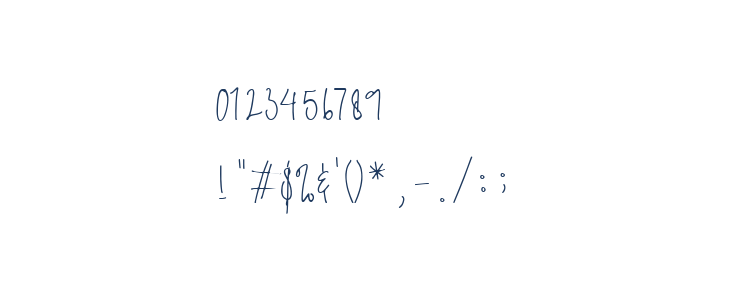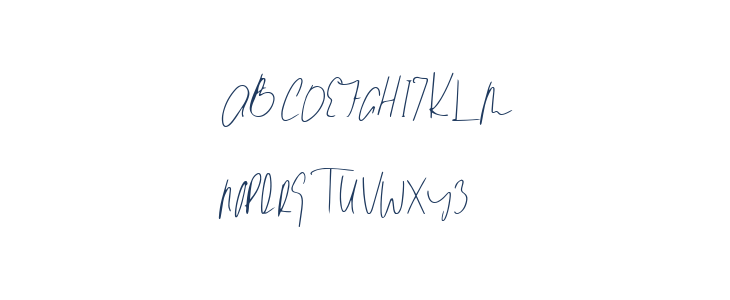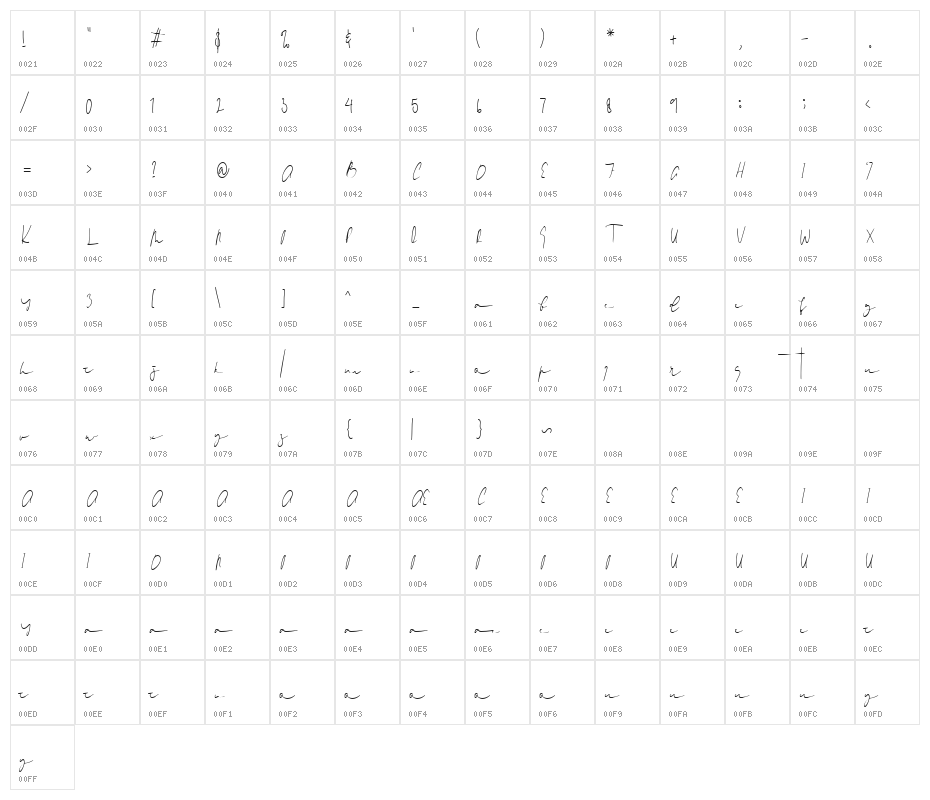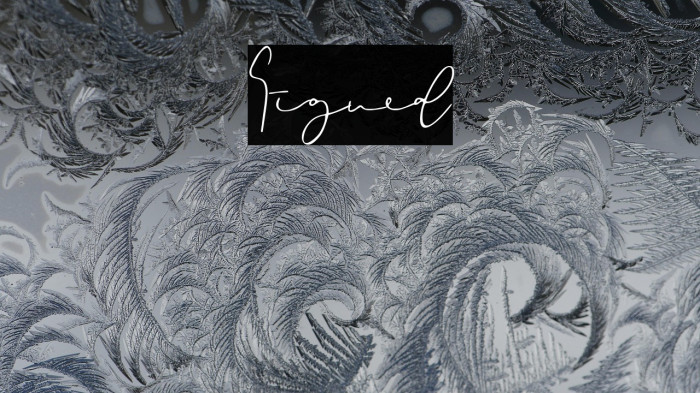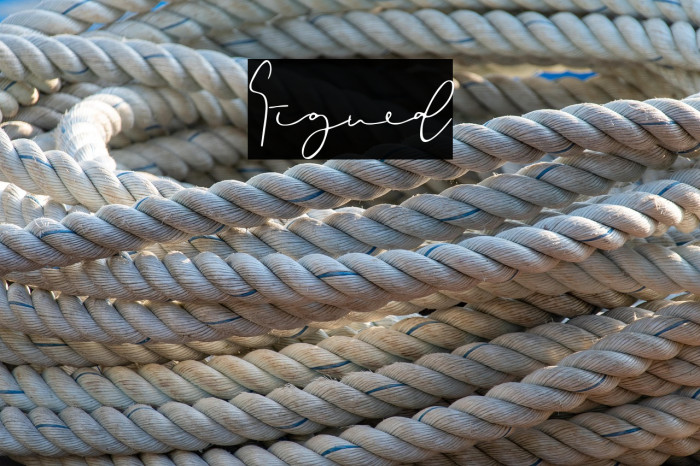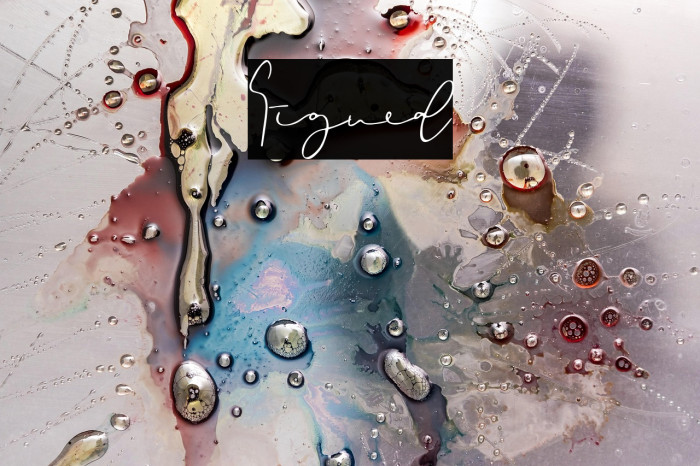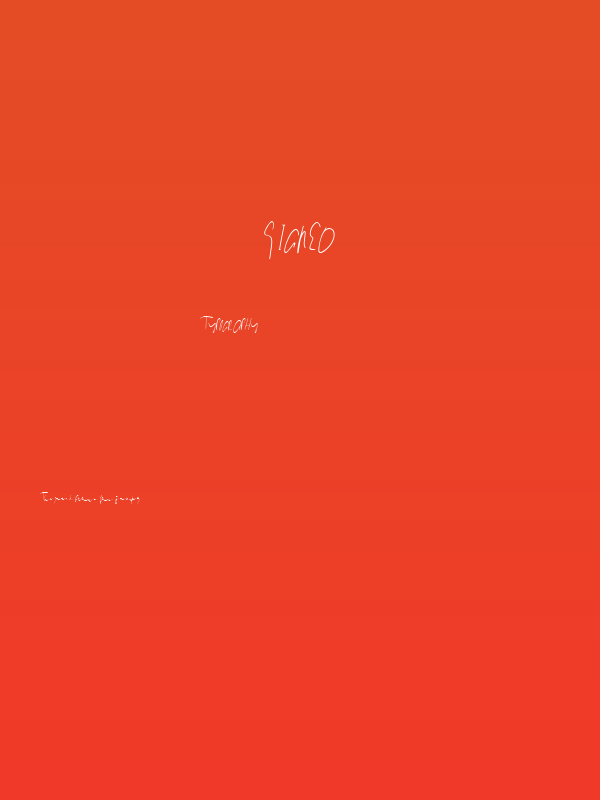
Signed Font
Signed Description
A handwritten, cursive script font with a delicate, flowing style, featuring thin strokes and a casual, personal feel.
Fonts by Mariyana
| Overall Style | Casual, Elegant, Personal |
| Use Case | Invitations, Personal Notes, Branding, Logos |